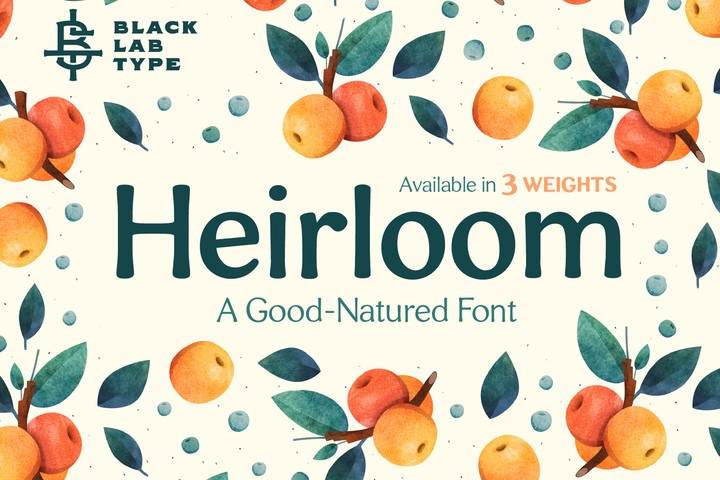
Heirloom - A Good-Natured Font
Heirloom - A Good-Natured Font is perfect for family businesses, heritage brand identity, traditional bakeries, handmade craft packaging, vintage home decor, nostalgic greeting cards, artisanal food labels, cozy restaurant menus, family reunion materials, and warm hospitality branding.
Heirloom - A Good-Natured Font is exciting because it embodies the warmth and comfort of cherished family traditions, creating a typeface that instantly evokes feelings of home, love, and generational wisdom. This font brings heartfelt authenticity and gentle sophistication to any project, making it ideal for brands and organizations that want to convey trust, heritage, and genuine care for their community. Its welcoming character and timeless appeal create an immediate emotional connection with audiences who value tradition and family bonds.
Heirloom - A Good-Natured Font family includes light, regular, medium, and bold weights, along with decorative flourishes, traditional ornaments, and vintage-inspired elements, providing designers with comprehensive tools for creating warm and inviting typographic experiences.
This charming heritage typeface combines traditional craftsmanship with contemporary usability, making Heirloom - A Good-Natured Font Free Download an exceptional choice for projects celebrating family values and timeless traditions. The font's carefully crafted letterforms feature gentle curves and welcoming proportions that reflect the care and attention passed down through generations.
Whether you're designing family business branding, heritage product packaging, or community event materials, Heirloom - A Good-Natured Font delivers unmatched warmth and authentic appeal. The font performs beautifully across all applications, from intimate stationery to large-scale signage where its good-natured character can welcome and comfort viewers.
Design professionals appreciate Heirloom - A Good-Natured Font for its ability to instantly establish trust and emotional connection while maintaining professional credibility. The font's heritage character makes it particularly suitable for family-owned businesses, artisanal brands, and organizations that value community and tradition.
Each letterform reflects the gentle wisdom and caring nature of family heirlooms, featuring warm details and comfortable proportions that create inviting typography for every generation.